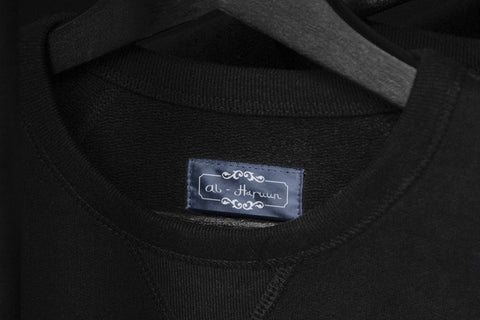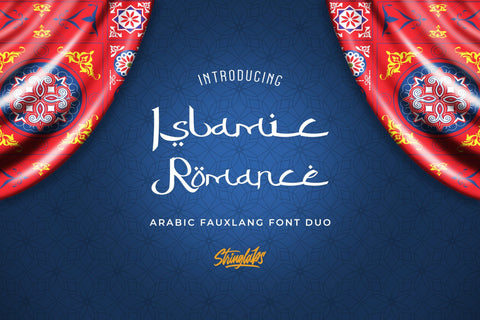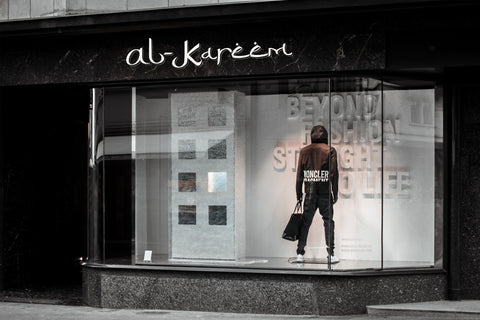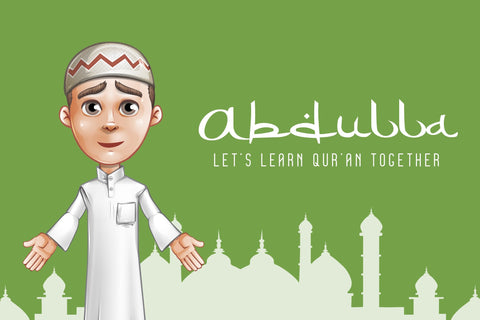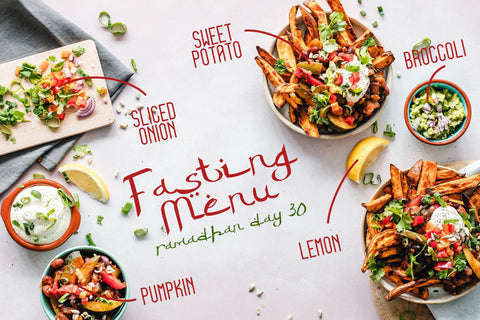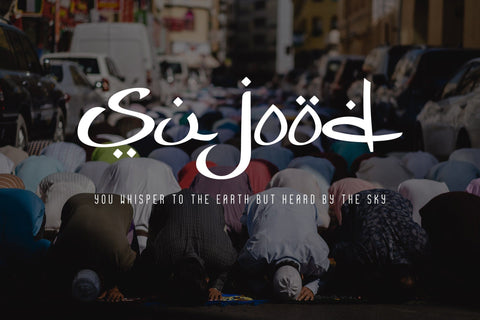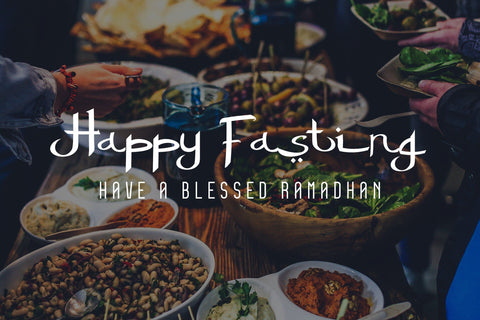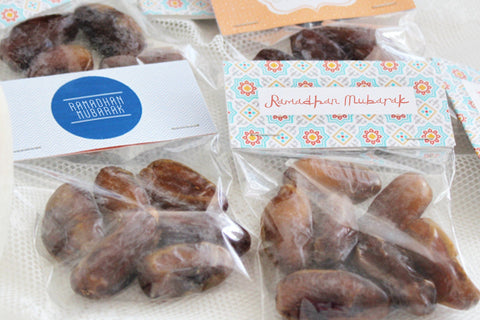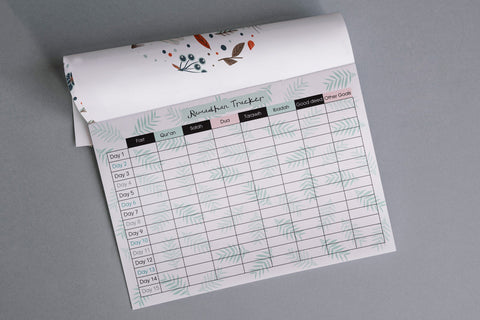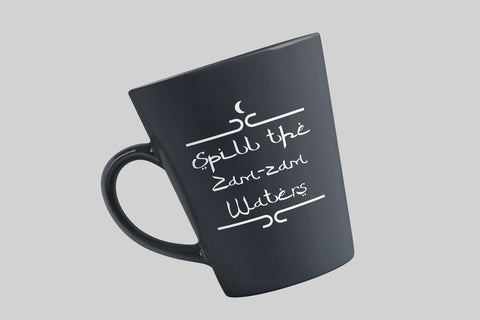
Islamic Romance - Arabic Fauxlang Font Duo
Introducing Islamic Romance - Arabic Fauxlang Font Duo
The Islamic Romance font is perfect for those of you who want fonts with Arabic & Sans Serif Style. This fonts is suitable for any purpose, such as: Arabic Logo Brand, Packaging Products, Muslim Fashion Clothing, and many more.
- Two Style: Arabic and Sans Serif
- Stylistic Alternates